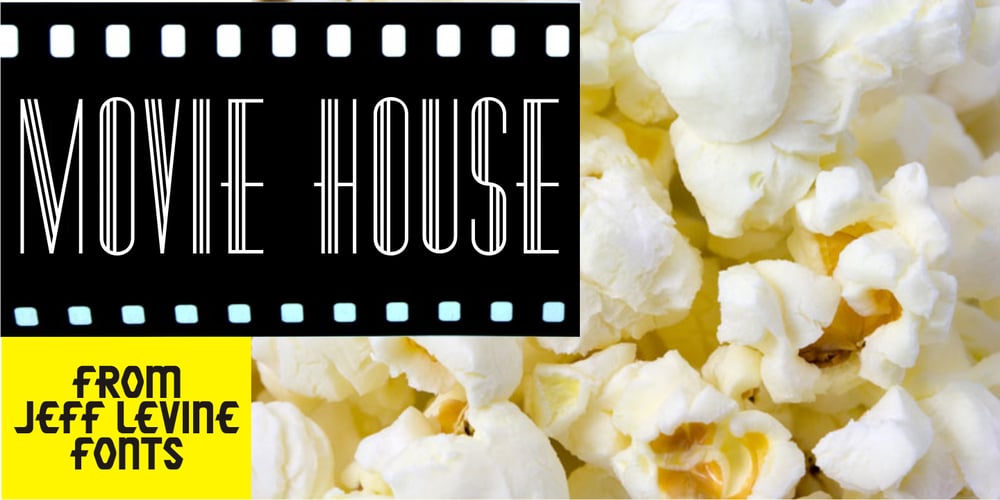
Movie House JNL Font Family was designed by Jeff Levine and published by Jeff Levine. Movie House JNL contains 1 styles and family package options. Double Feature JNL reworks the classic Huxley Vertical into an elegant trilinear Art Deco display face.